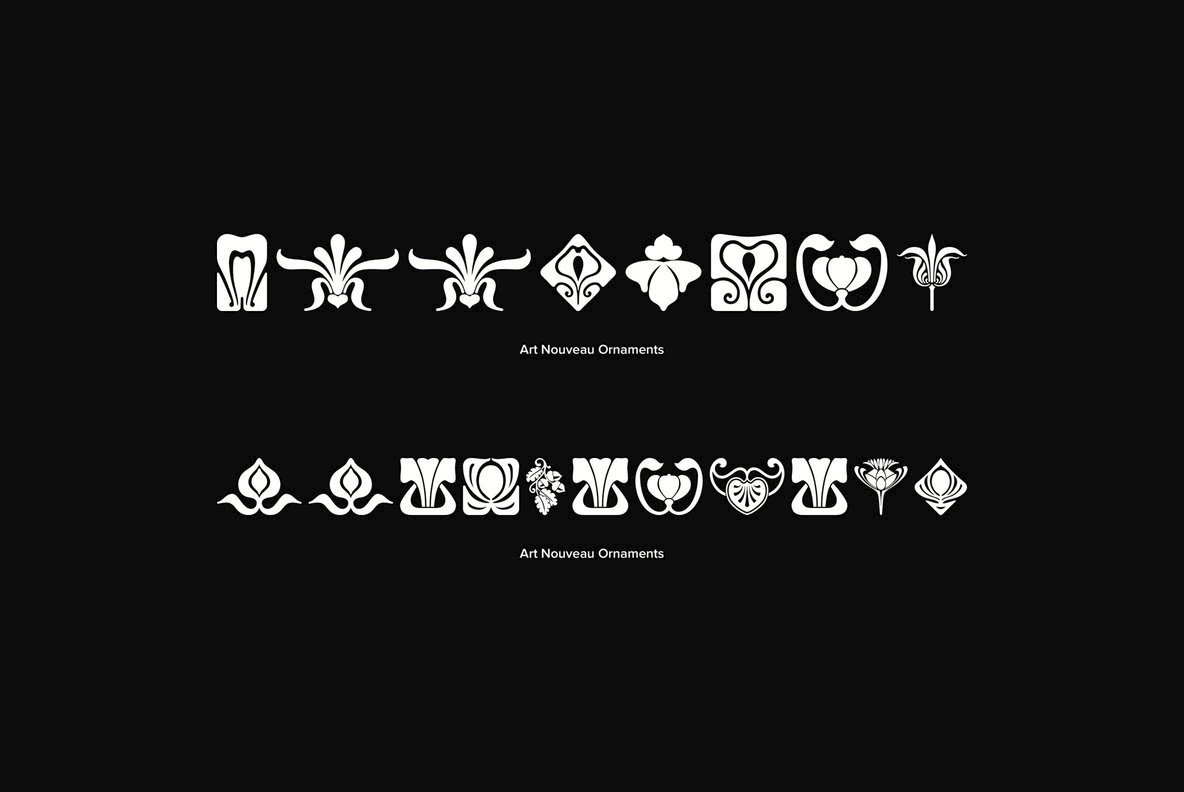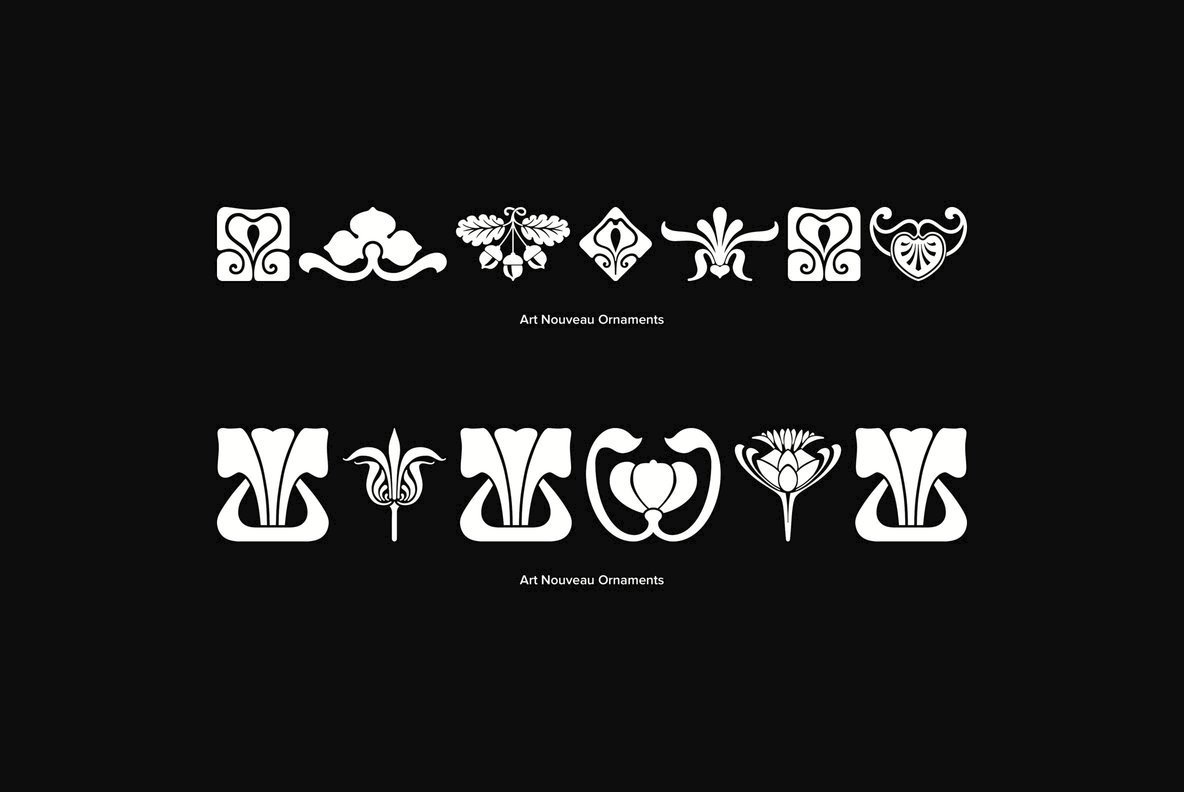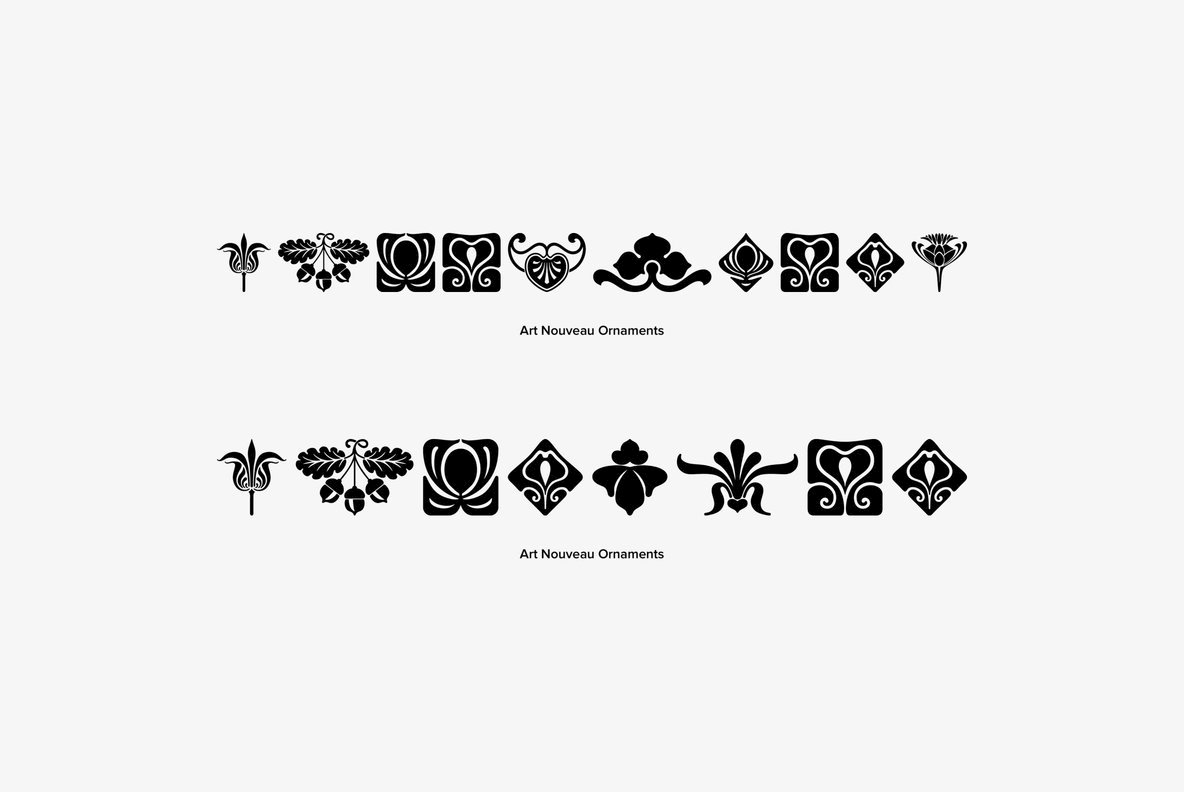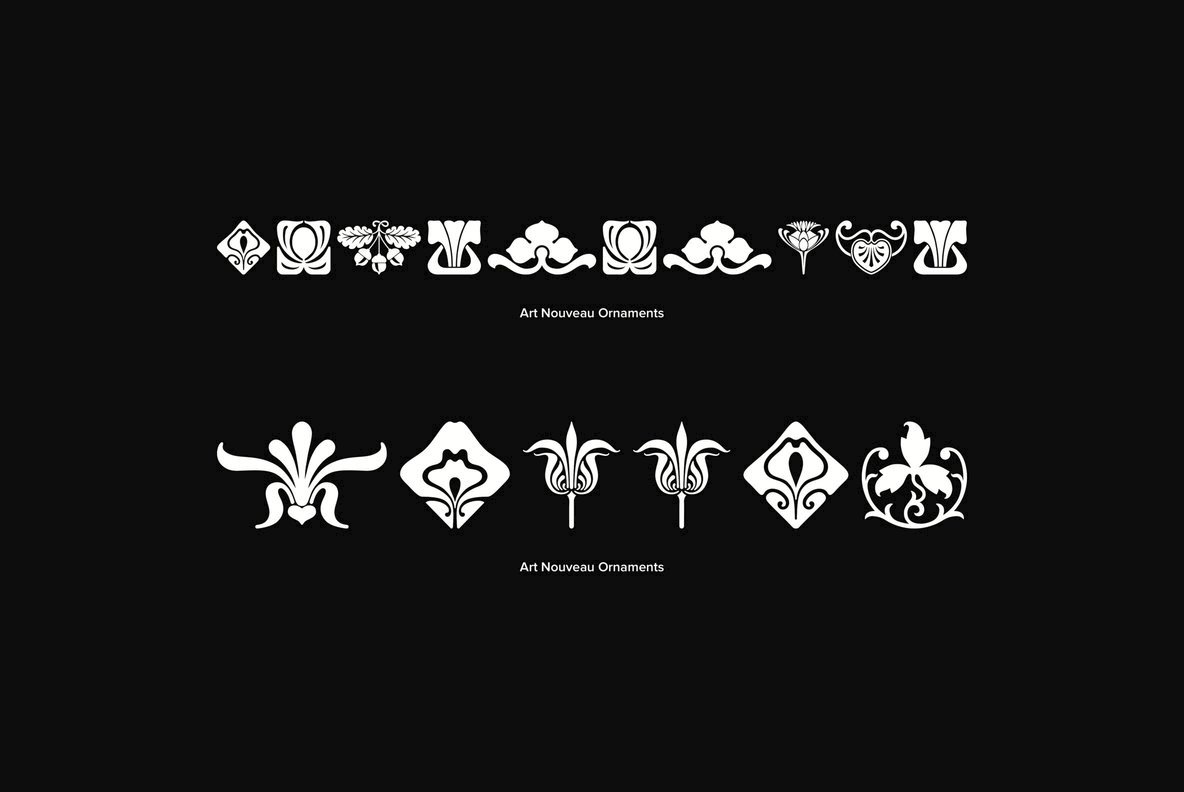
Art Nouveau Ornaments Font
Art Nouveau Ornaments
Art Nouveau Ornaments was inspired by designs from historic sources drawn in the Art Nouveau style.
There is an assortment of 47 ornaments located under the character set keys.
Gerald Gallo is a professional graphic designer.While designing trademarks and logotypes, Gerald often designed unique lettering. It was a natural step to create entire alphabets from some of these designs. However, it was very difficult to have a font produced before the advent of the personal compute...